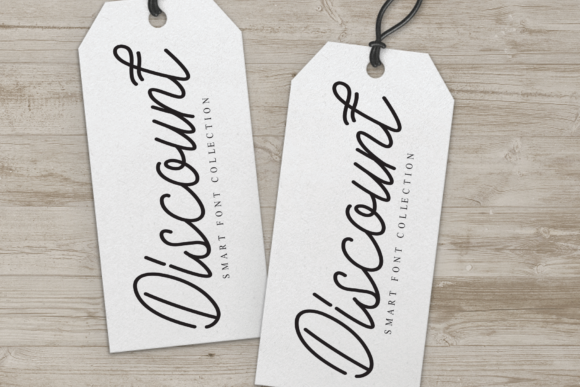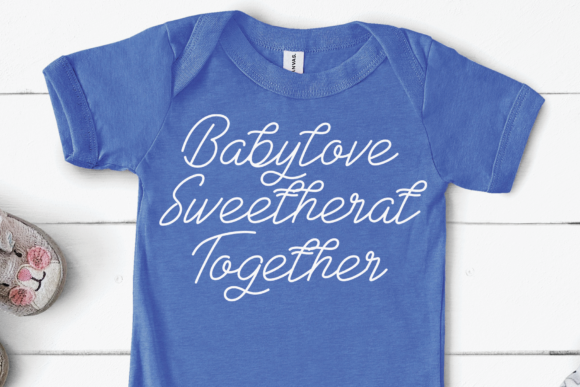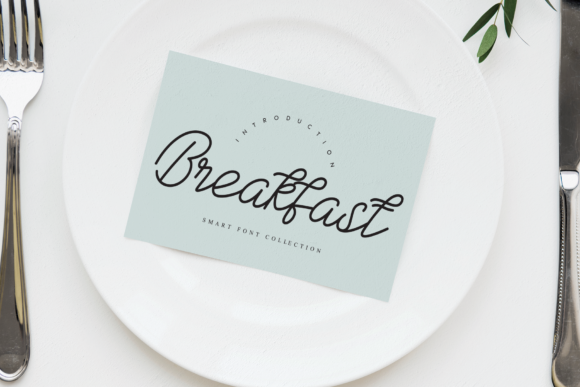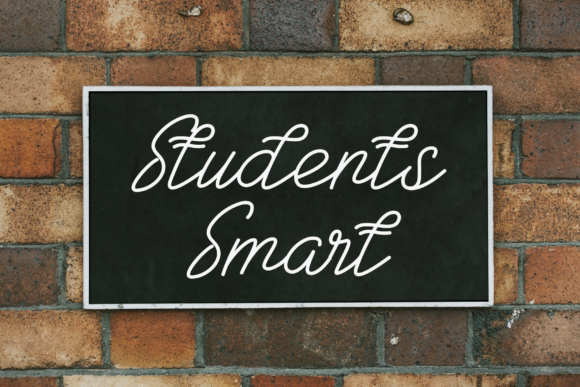
Adellia Font
About Adellia Font
Adellia is a unique and elegant handwritten font. It looks beautiful on a variety of designs requiring a personalized style, such as wedding invitations, thank you cards, weddings, greeting cards, logos and so on.